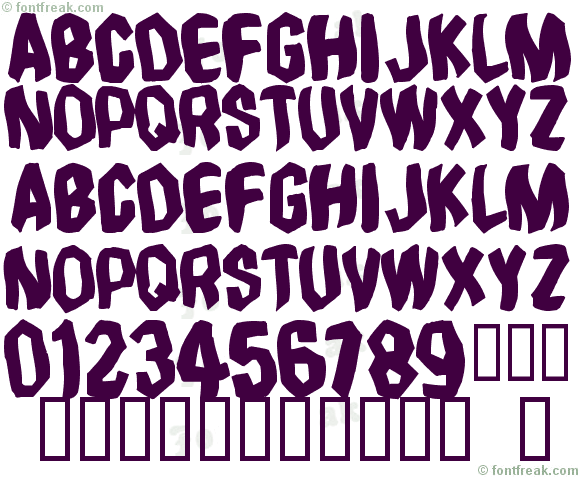
About Timebomb
The Timebomb font by Pizzadude is a distinctive display typeface that captures attention with its bold and playful character. This decorative font features chunky, irregular letterforms that evoke a sense of excitement and energy, making it ideal for various creative applications. The stroke weight is consistently thick, contributing to its robust appearance, while the playful shapes create a dynamic contrast that makes each letter stand out. The spacing between the letters is intentionally tight, enhancing the cohesive look and feel of the typeface.
Timebomb is perfect for a range of specific use cases. It shines in contexts such as movie posters, where its energetic vibe complements action-packed themes. Additionally, it can be utilized for event flyers, helping to convey a lively atmosphere. The font also works well for social media graphics, particularly for promotions or announcements that aim to grab viewers' attention. Its unique style lends itself to merchandise design, making it suitable for custom apparel or stickers, particularly for brands targeting a youthful demographic.
What sets the Timebomb font apart is its ability to convey a sense of urgency and excitement, making it a compelling choice for any design project that aims to stand out. With its unique style and versatility, the Timebomb font free download offers a fantastic opportunity for creatives seeking to enhance their visual storytelling.